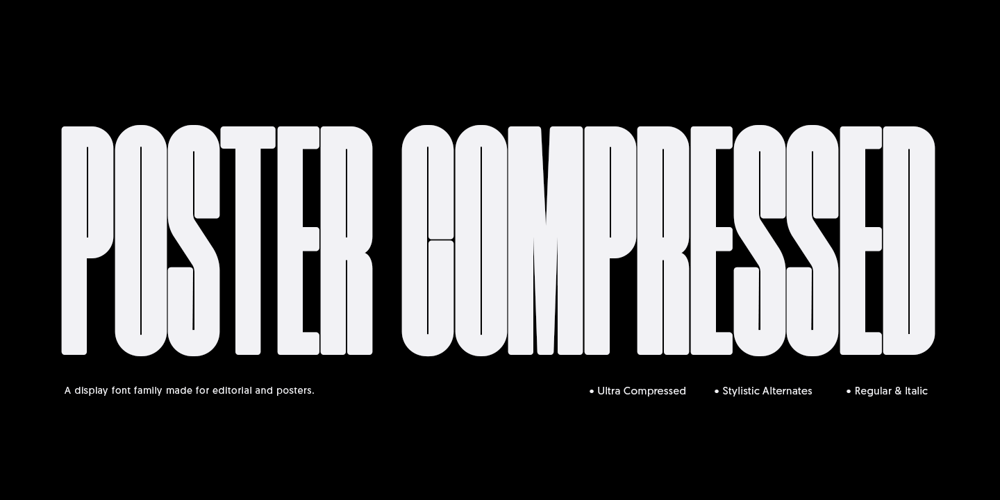
Poster Compressed
Poster Compressed font
Poster Compressed Font Family was designed by Andrew Footit and published by Arkitype. Poster Compressed contains 2 styles and family package options. Poster compressed is a display font made specifically for editorial and posters. This font has a super compressed character set and super tight kerning to match! This gives you the ability to create large headlines and copy for bold typographic posters and editorial pieces. This font packs punch when it comes to large copy lines and you’re going to want it in your font arsenal.